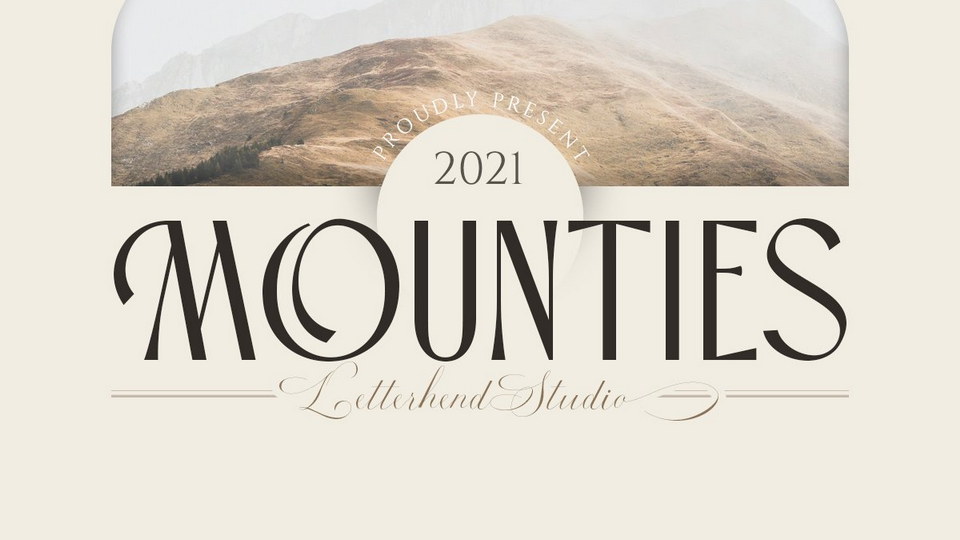
Download Mounties font, an exquisite display typeface that has neat and sleek letterform. Mounties maintains its classy calligraphic influences while feeling contemporary and fresh.